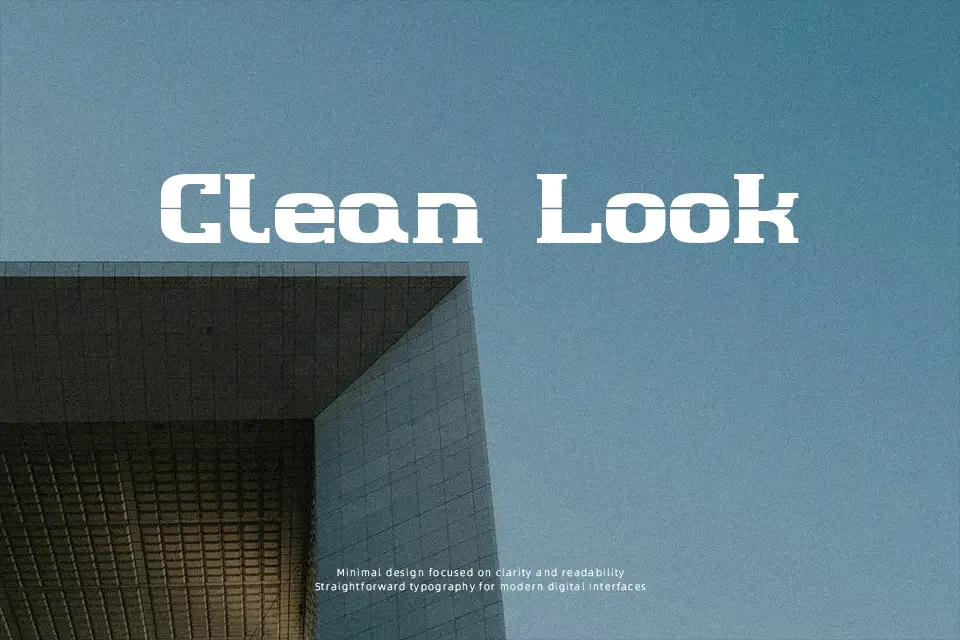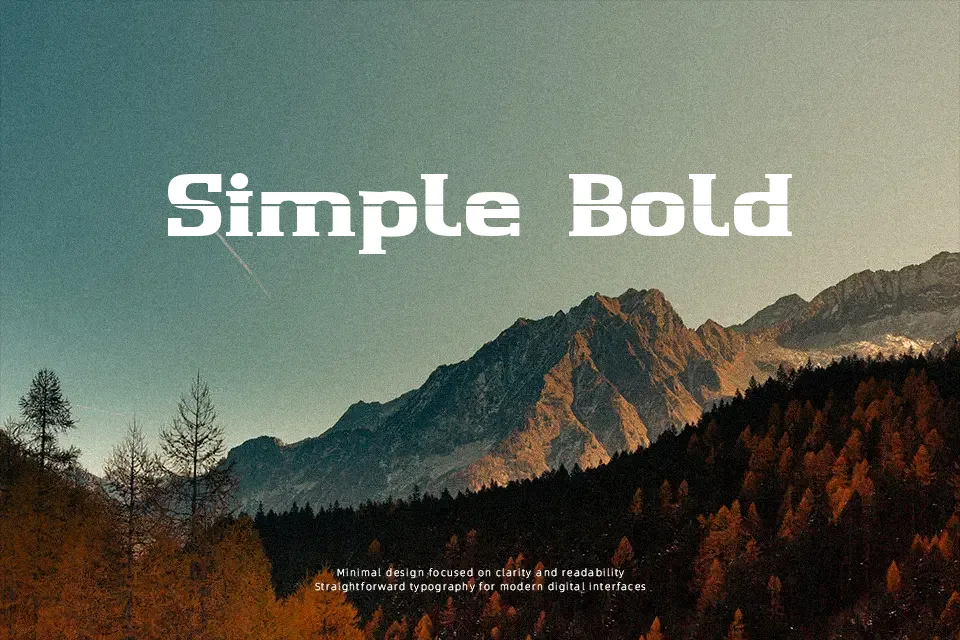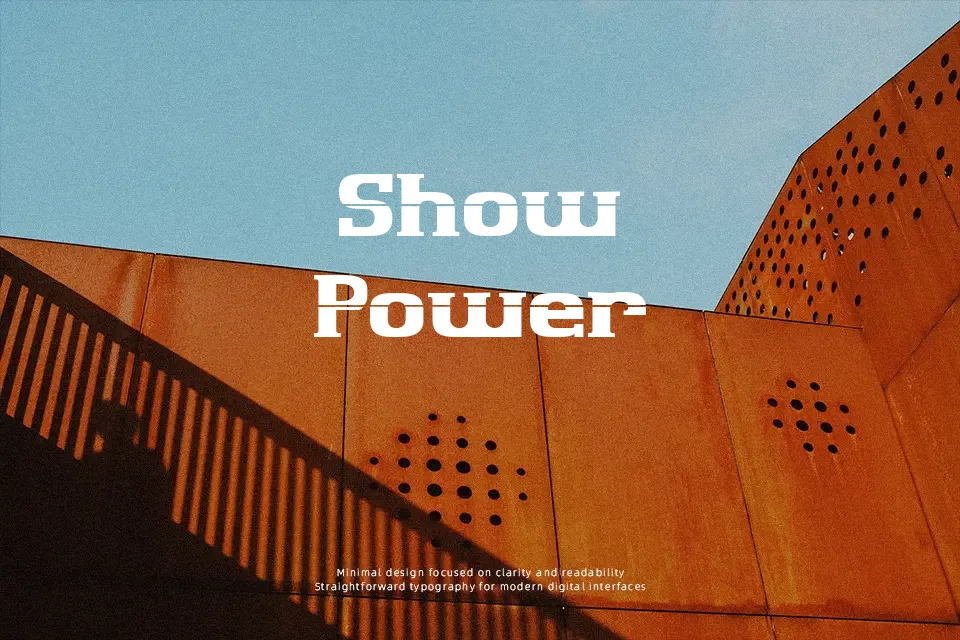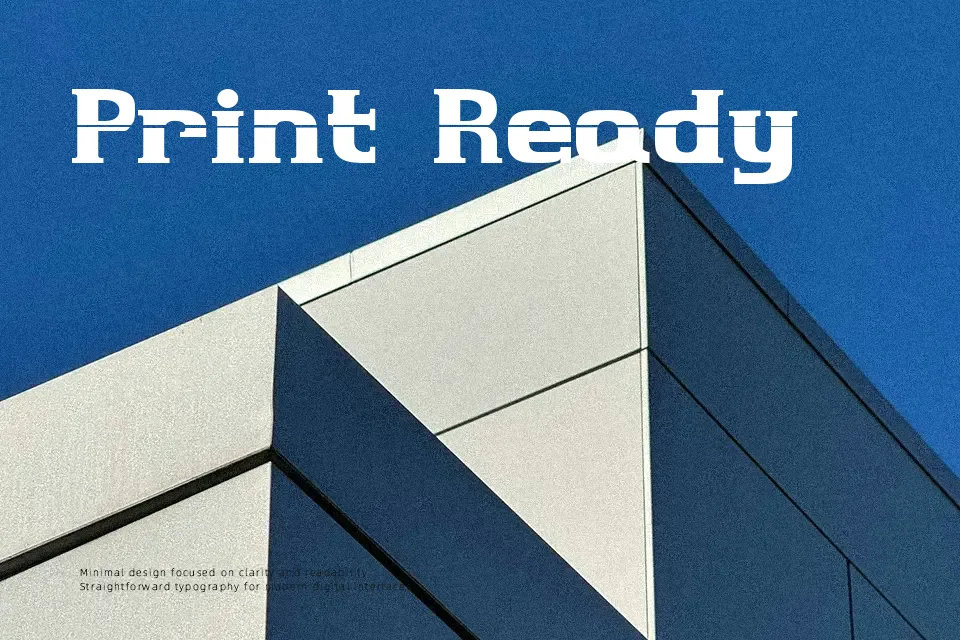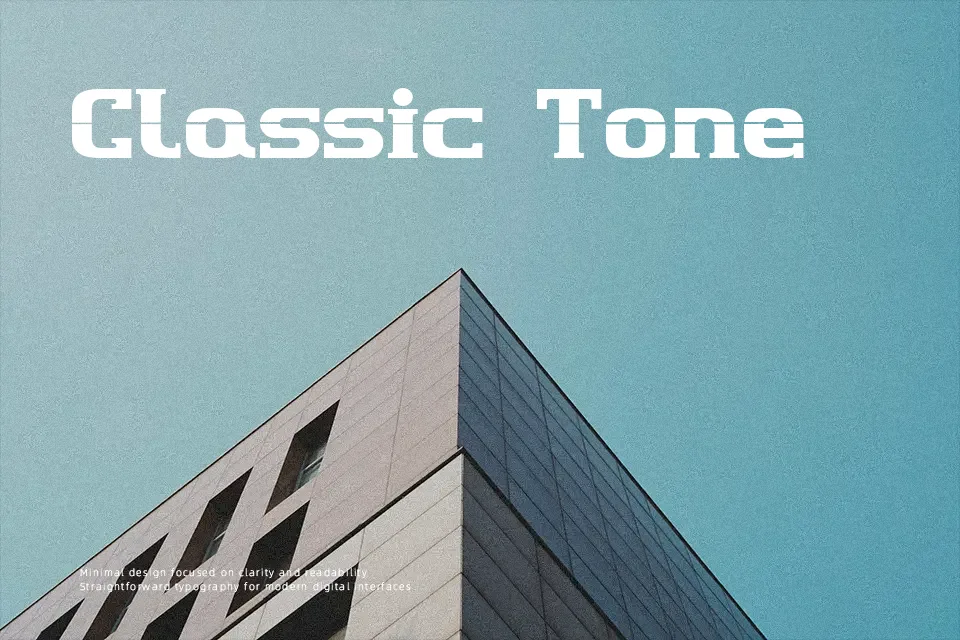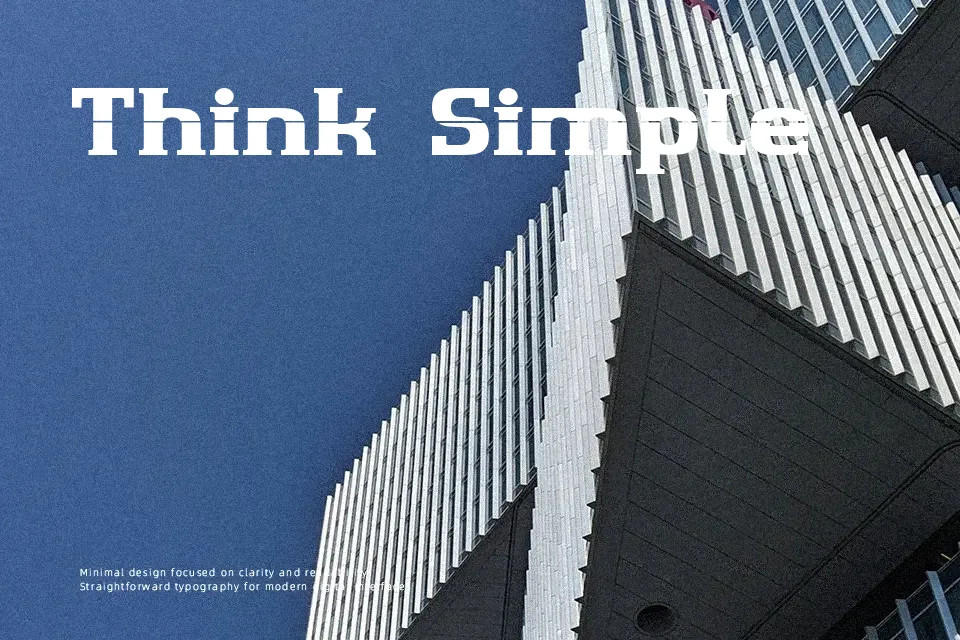
Cherif Font
Cherif Font presents an authentic Western aesthetic defined by thick block serifs, medial spurs, and prominent vertical stress. The letterforms display high stroke contrast between robust main stems and slender horizontal crossbars, giving each character an unmistakable frontier presence. Generous glyph widths paired with moderately tight spacing ensure headlines command immediate attention on large-format prints, though the exaggerated decorative brackets cause lowercase forms to cluster when scaled down. While the design excels in bold titles, vintage book covers, and rustic apparel graphics, the dense stroke weight makes it less suitable for long paragraphs or small editorial captions.
Best For: vintage product packaging, western restaurant signage, movie title cards
Not Ideal For: long paragraph text, small interface labels, dense editorial layouts
Perfect for branding, film, and headline, with a bold and decorative style.